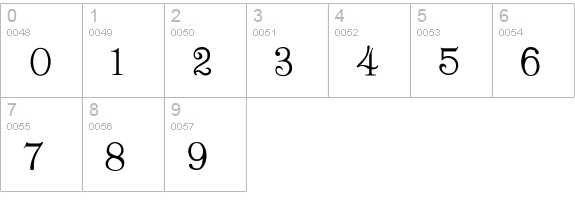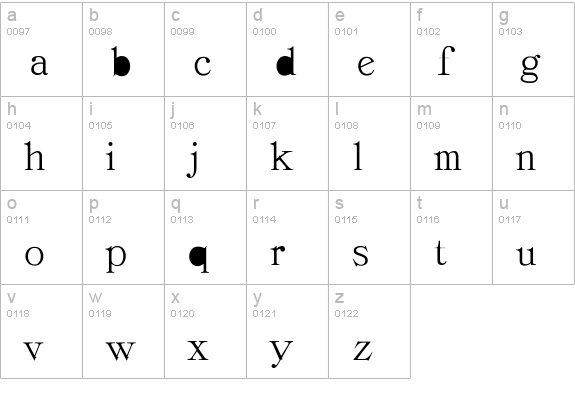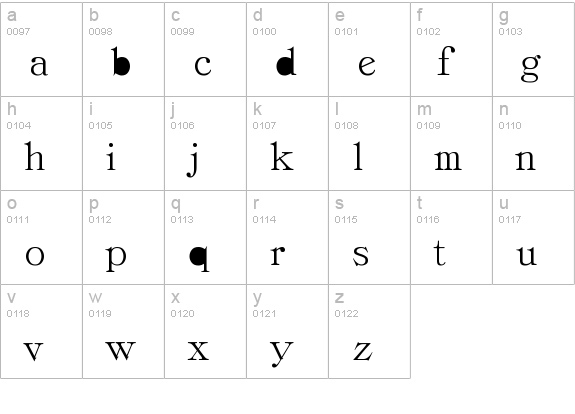
Cordella-Roman Font Details
Cordella-Roman font is a timeless and elegant typeface that exudes sophistication and grace. Its classic serifs and sleek lines make it perfect for a wide range of design projects, from elegant invitations to professional documents. The font's versatility and readability make it a popular choice for both print and digital applications. What sets Cordella-Roman font apart is not only its beauty but also the fact that it is available for free download at FontsMarket.com. This means that designers and creatives can easily access this stunning font without any cost, making it a valuable addition to any font library. Whether you're working on a branding project, wedding invitation, or a corporate presentation, Cordella-Roman font will elevate your design and leave a lasting impression. Download this exquisite font for free at FontsMarket.com and add a touch of luxury to your next project.